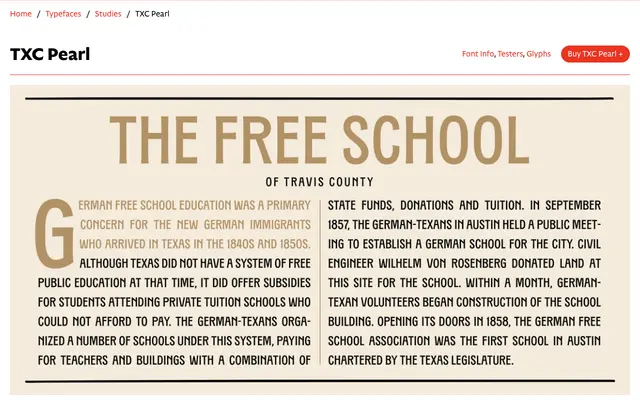
TXC Pearl
CAST · Andy Anzollitto · 2019
An uppercase condensed sans by Andy Anzollitto that fuses American wood type traditions with Jugendstil lettering sourced from 19th-century German-Texan newspapers.
Designed as the first release in the Texanische type collection, TXC Pearl draws on specimens from German typefounders including Berthold and Schelter & Giesecke, filtered through advertisements in newspapers like Die Freie Presse Für Texas. The design is caps-only with condensed proportions, slightly squarish round forms and gently flared stems that hint at serifs without committing to them. Distinctive details include flat apexes on A and M, elevated central bars on E and F, and small bowls on P and R that break quietly from grotesque convention.
An uppercase-only condensed sans with Jugendstil ornamental inflections, designed for display use. Its historical reference to American wood type and Art Nouveau lettering places it firmly in the display category despite its grotesque structural underpinning.